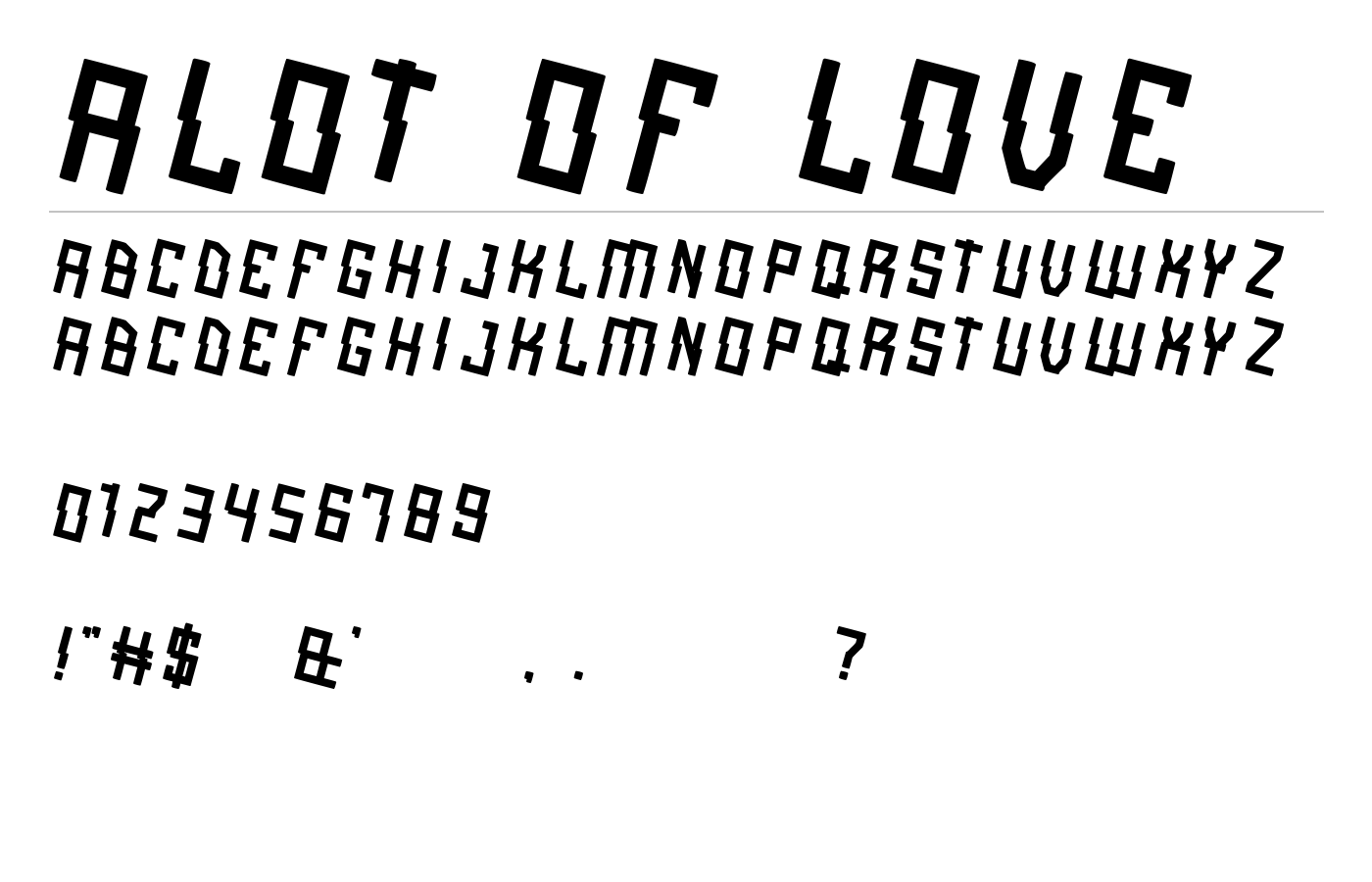
Alot of love is a bold, condensed sans serif font with a quirky, angular design and a slight rightward slant that adds dynamic energy. Its blocky letterforms create a modern, playful vibe, making it ideal for eye-catching headlines, posters, and branding that seeks a unique, spirited character. This font works well where a strong, unconventional style is desired to stand out with personality and attitude.
alot of love Font
About alot of love Font
| Font family | alot of love Font |